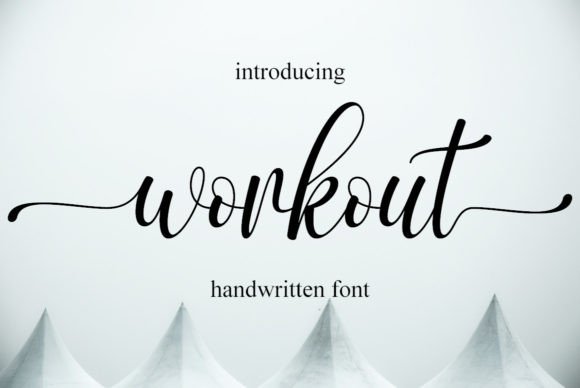
Introducing Workout Font, the ultimate font for cake topper cricut enthusiasts! Created by the talented designers at Hardiboy Design, this script font is not only visually stunning but also packed with creative potential. With its simple and friendly handwritten style, Workout Font is perfect for a wide range of uses, from crafts to digital design, presentations, and even greeting cards.
What sets Workout Font apart from the rest is its versatility and charm. Its elegant strokes and unique curves make every letter a work of art. Whether you're designing a personalized cake topper for a special occasion or creating eye-catching graphics for your online store, this font will truly elevate your creations.
But what truly makes Workout Font a must-have for any designer is its extensive range of features. PUA encoding allows you to effortlessly access all the glyphs and ligatures, opening up a world of creative possibilities. Say goodbye to limitations and hello to endless design options.
Imagine the joy of effortlessly crafting beautiful wedding invitations or adding a personal touch to your scrapbooking projects. With Workout Font, you can add a touch of elegance and sophistication to your designs, making them truly stand out. Your friends, family, and customers will be in awe of your creativity and attention to detail.
But it's not just about the aesthetics. Workout Font is also designed with user-friendliness in mind. Its smooth and legible characters ensure that your message is conveyed clearly, regardless of the medium. Whether you're printing your designs or showcasing them online, this font guarantees a seamless reading experience.